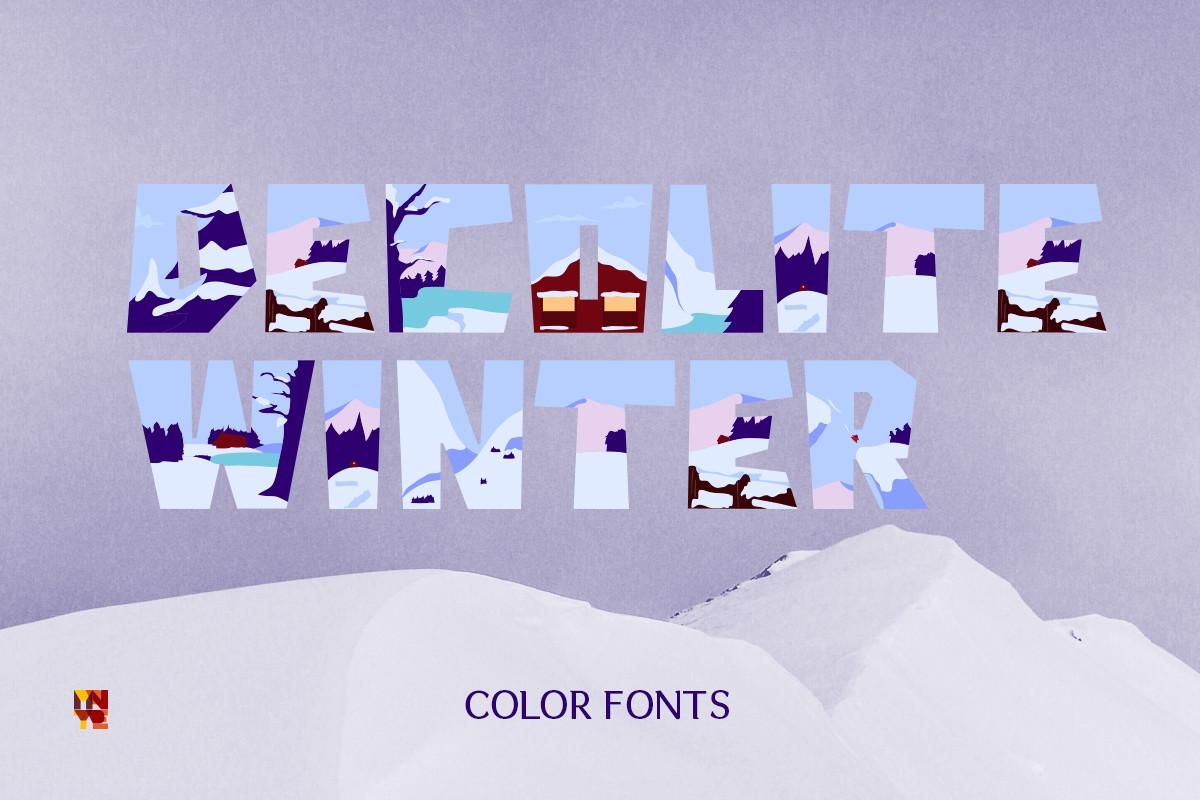
Decolite Winter Font Description
Decolite Winter is a playful, decorative, and bold illustrative color font. This font will give you a memorable yet unique winter project for your poster, scrapbook, crafting, t-shirt, or invitation card designs. Decolite winter capture mountain scenery that you can combine with your own art.